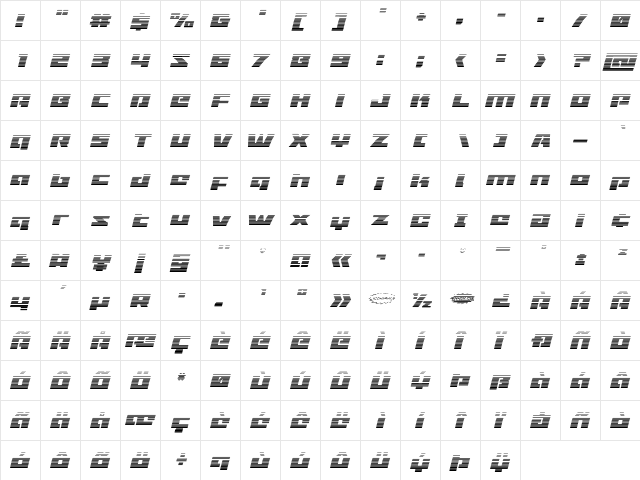
Turbo Charge Gradient Italic Italic
Design Context for Turbo Charge Gradient Italic Typeface
Turbo Charge Gradient Italic is a composed and adaptable typeface that performs quietly and consistently across a wide range of design contexts. The slanted form adds forward momentum and visual energy.
Pro Tip: Try Turbo Charge Gradient Italic for annotation and caption copy alongside an upright companion — the contrast in angle creates a dynamic but ordered typographic system.